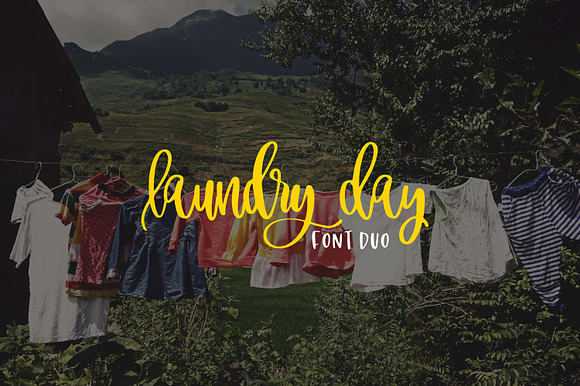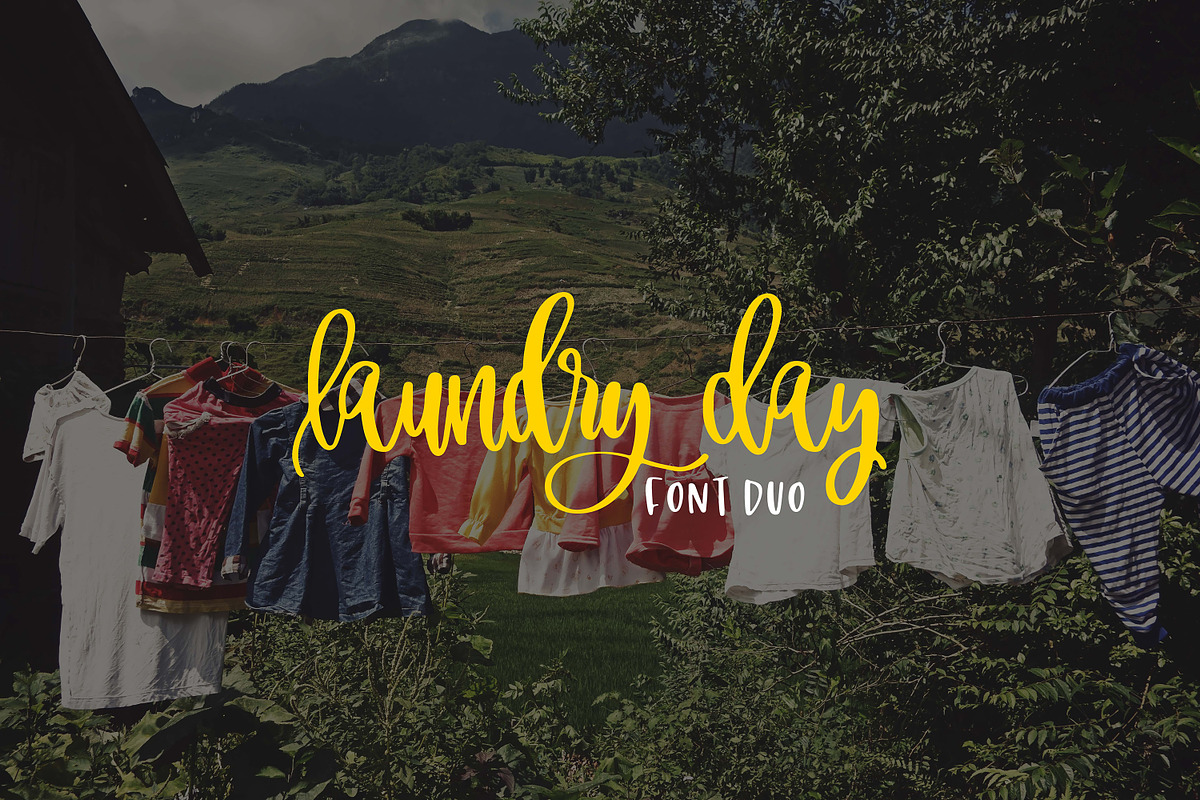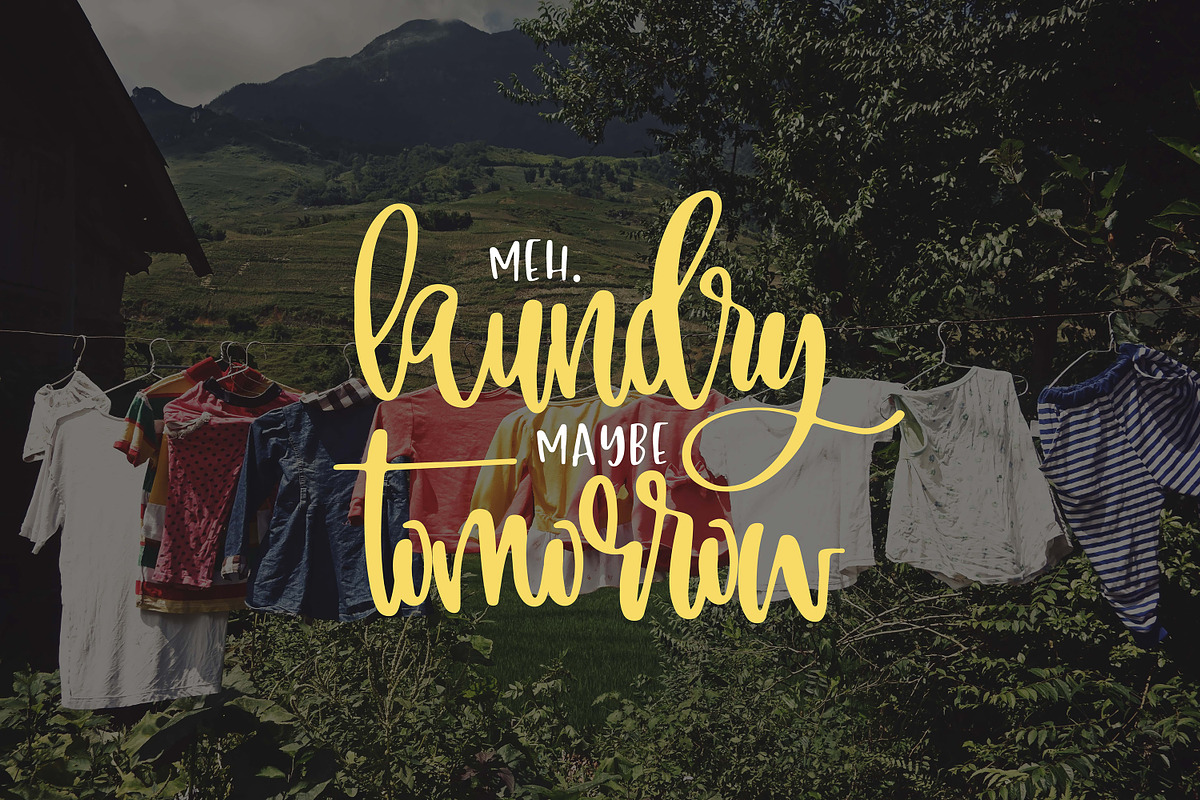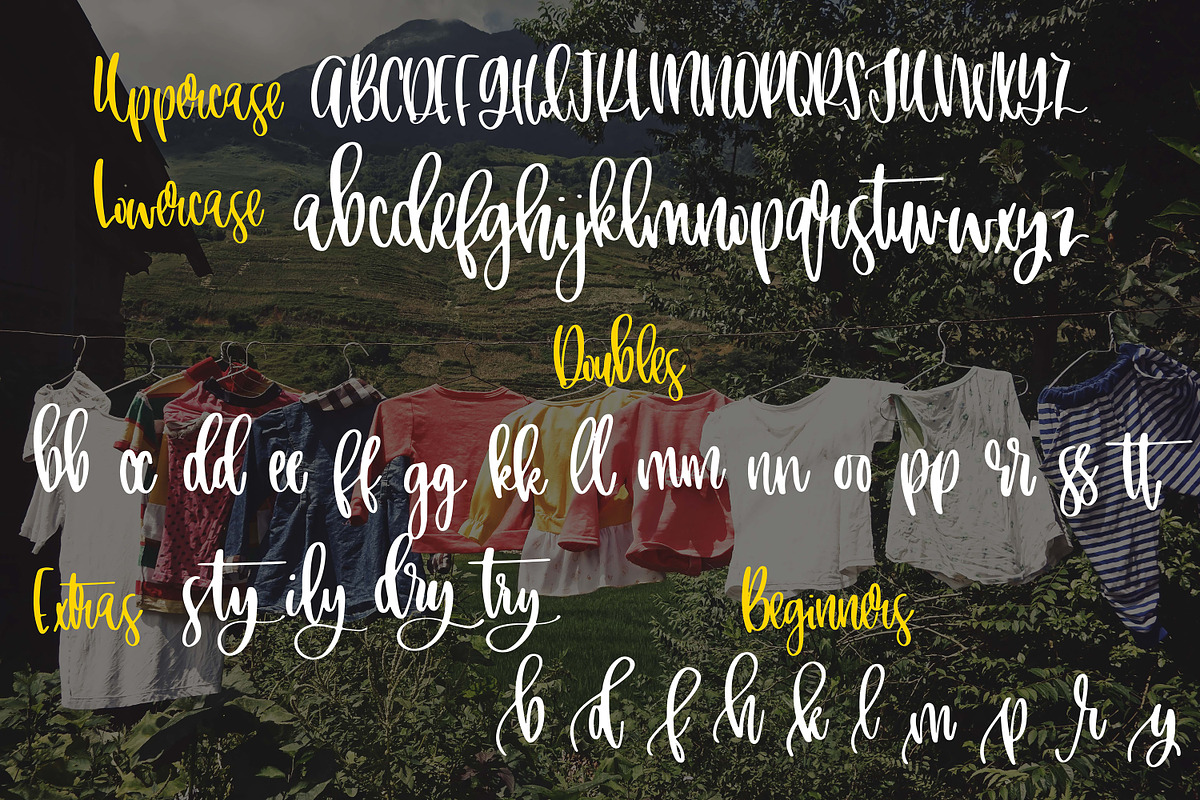
Laundry Day Font Duo
Quirky script with a coordinating small caps print to create unique custom designs! Laundry day is a handlettered font to give your projects that hand lettered feel!
- Laundry Day Regular
- Laundry Day Print Regular